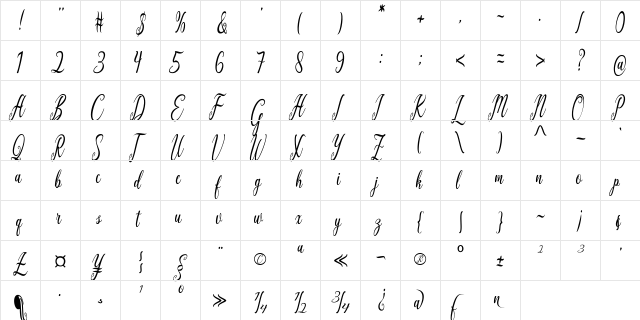
California Script Regular
Design Context for California Script Typeface
California Script flows with the natural rhythm of handwritten lettering, making it ideal for designs that call for warmth and personal expression.
Font Pairing: Combine California Script with a simple geometric sans for maximum contrast — the tension between flowing curves and clean structure is a classic typographic pairing.
Pro Tip: Pair California Script with a clean sans-serif for supporting text. The contrast between fluid script and geometric structure creates an elegant typographic hierarchy.